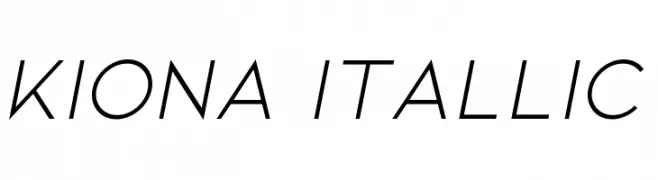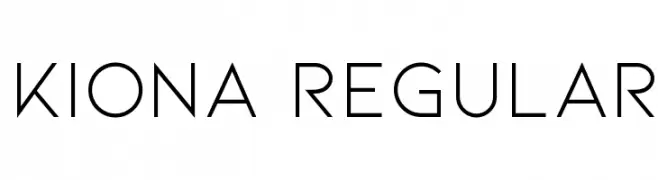
A modern, italic font with clean, geometric lines and a minimalist aesthetic.
A modern, geometric sans-serif font with clean lines and uniform stroke width.